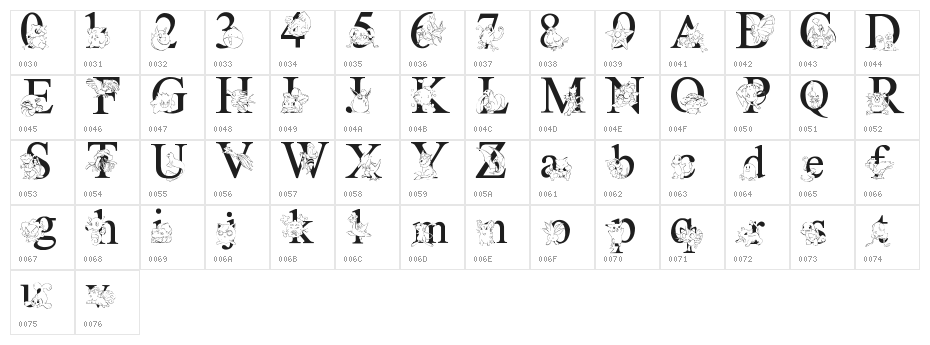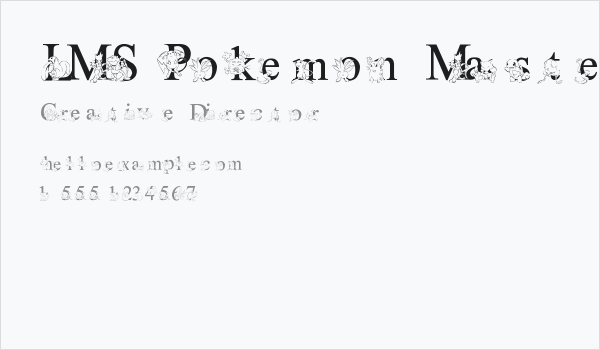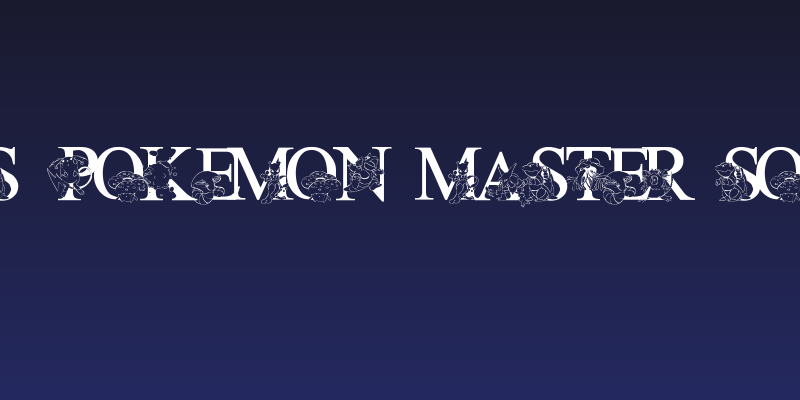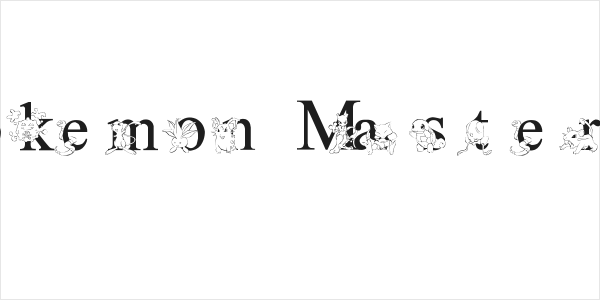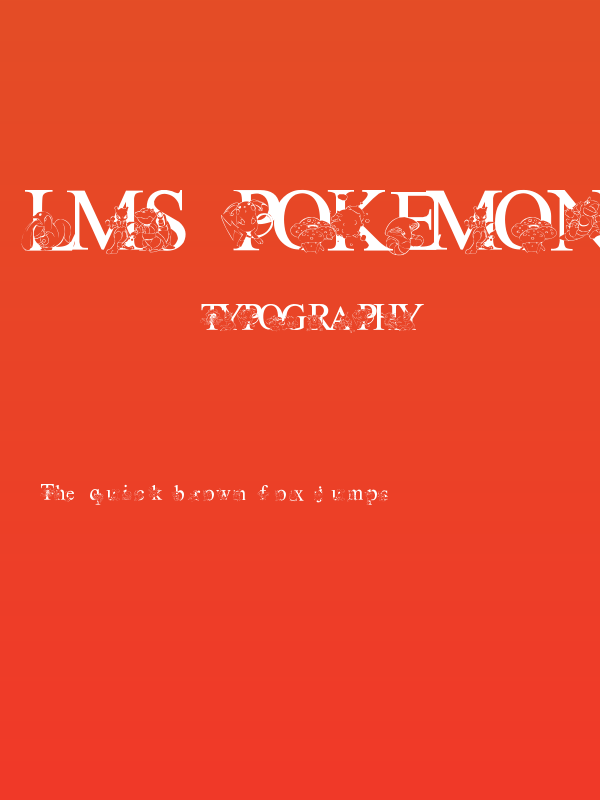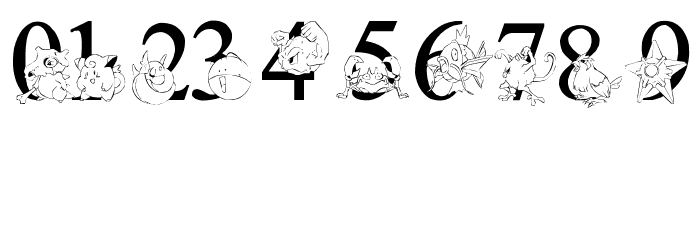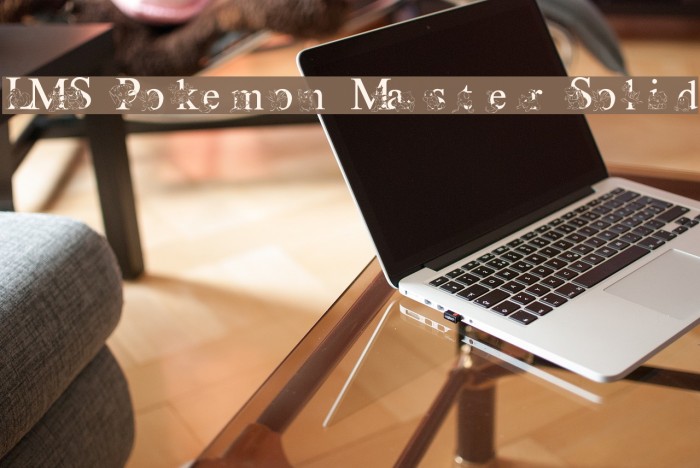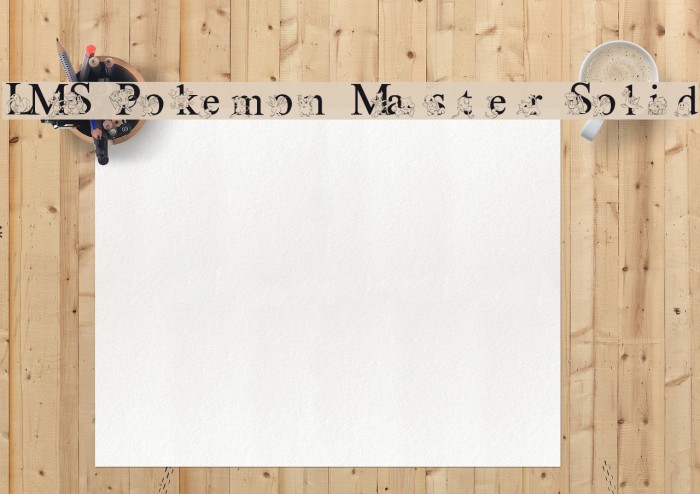
LMS Poke'mon Master Solid Font
LMS Poke'mon Master Solid Description
This playful and decorative font features a unique integration of cartoon characters within each letter and number, creating a whimsical and engaging visual experience. The characters are intricately woven into the strokes of the letters, adding a layer of complexity and charm. The uppercase and lowercase letters maintain a consistent style, with bold, serif-like structures that provide a solid foundation for the character illustrations. The numbers follow the same design principle, ensuring uniformity across the font. This font is ideal for projects that aim to capture attention and convey a sense of fun and creativity. The character spacing is normal, allowing for readability despite the intricate designs. The contrast in stroke thickness is medium, balancing the decorative elements with legibility.